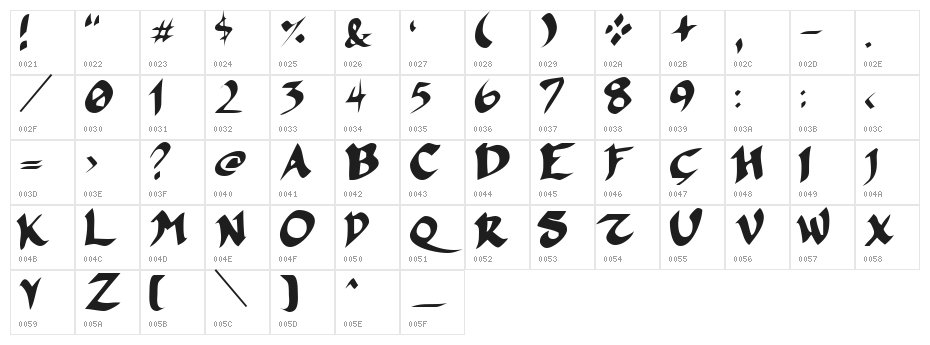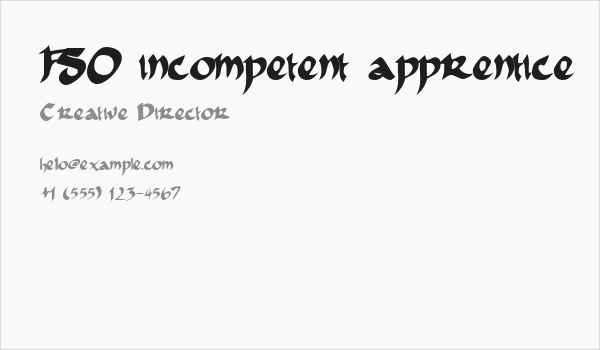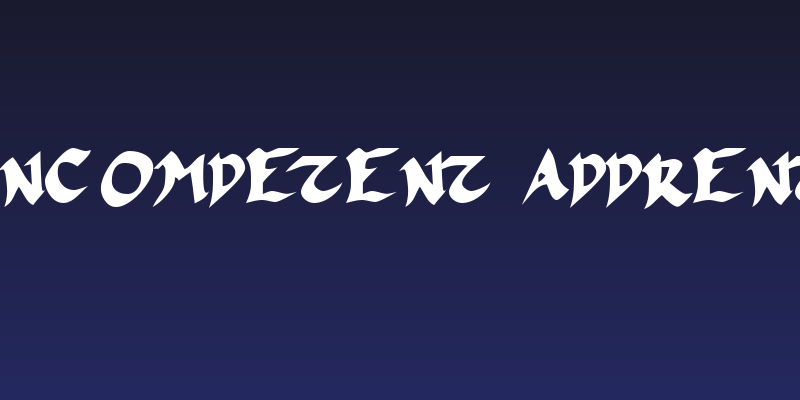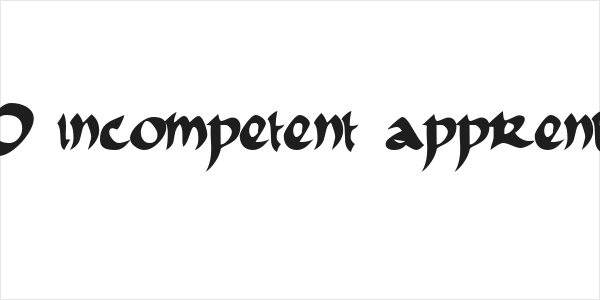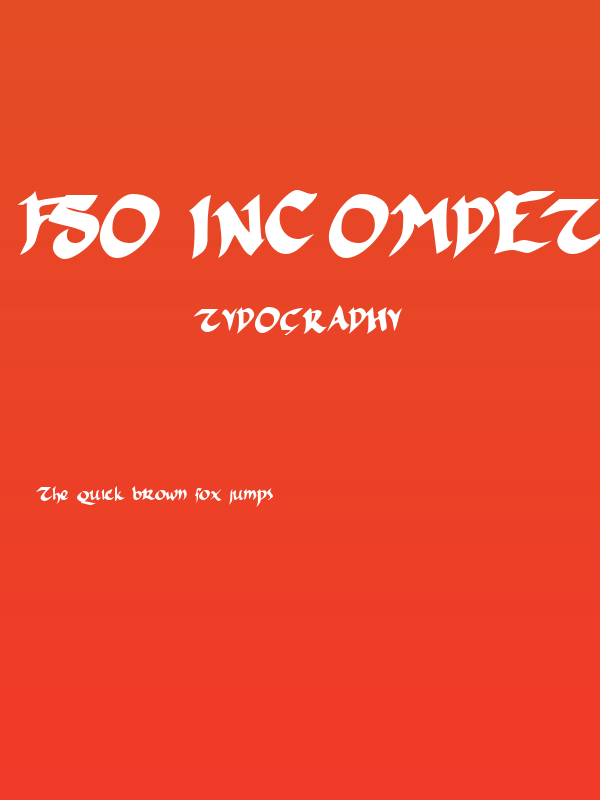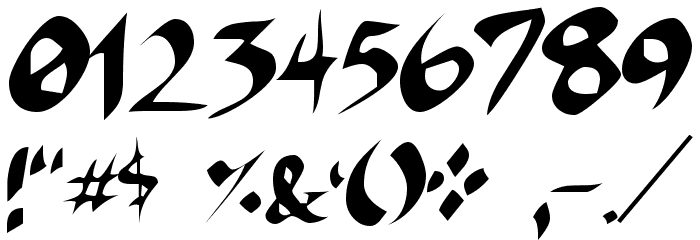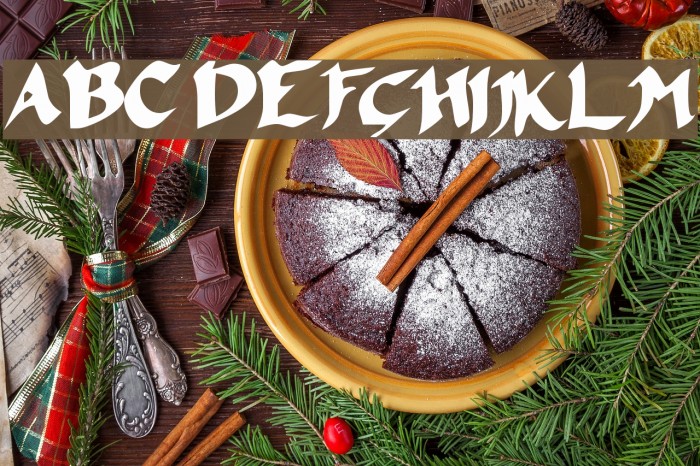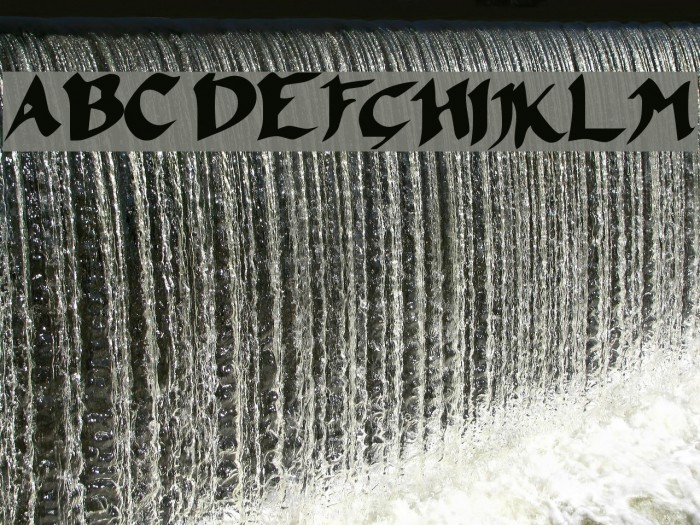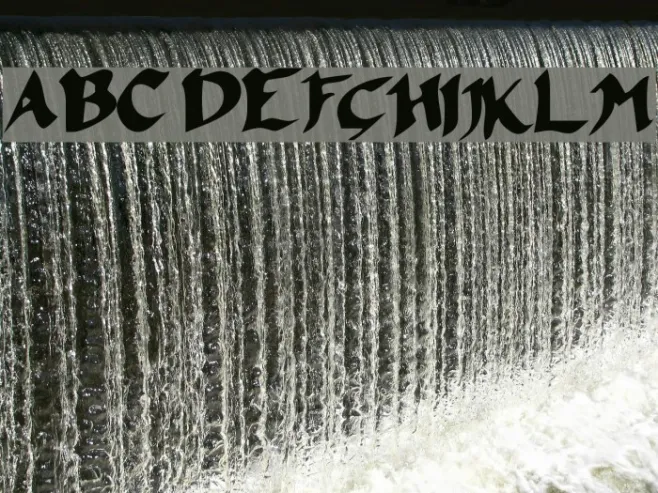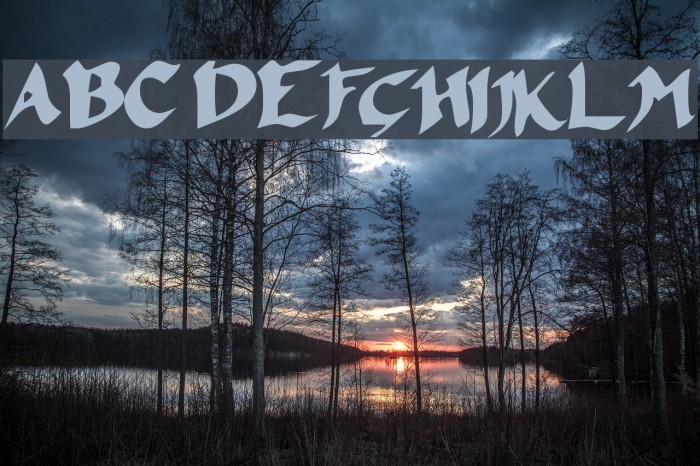
FSO incompetent apprentice Font
FSO incompetent apprentice Description
This font features a bold, dramatic style with sharp, angular lines and a distinctively gothic appearance. The characters are heavily stylized, with exaggerated curves and pointed edges, creating a sense of movement and intensity. The uppercase letters are particularly striking, with their strong vertical strokes and intricate detailing. The lowercase letters maintain the same boldness, with unique flourishes that add to the overall aesthetic. Numbers and special characters are equally expressive, fitting seamlessly into the font's cohesive design. This font is ideal for projects that require a strong visual impact and a touch of medieval or fantasy flair.
| Overall Style | Gothic, Dramatic |
| Proposed Projects | Perfect for fantasy book covers, video game titles, posters, and branding that requires a bold, dramatic impact. |